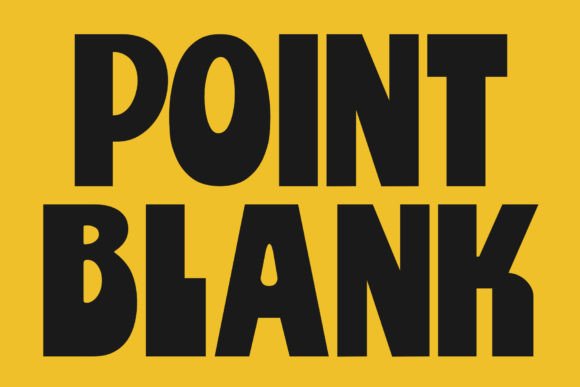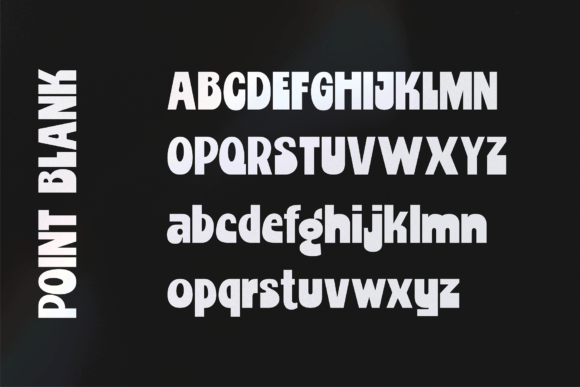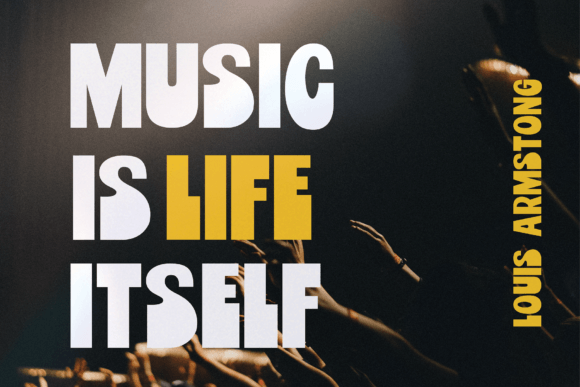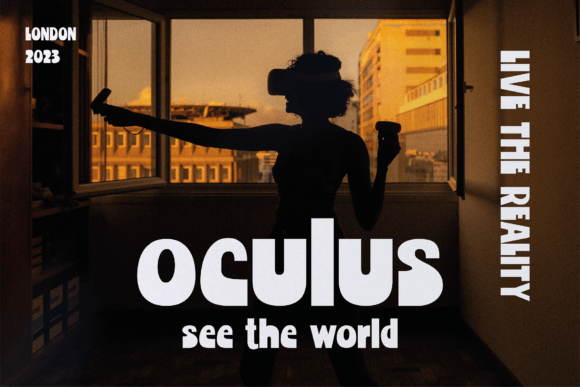
Point Blank Font
About the Point Blank Font
We are excited to introduce Point Blank Font, a must-have typeface for any serious designer. Point Blank is a retro-inspired display font that takes us back to the groovy and funky style of the 1960s and 1970s. With big, bold, and chubby letterforms, this typeface is perfect for making a statement. Whether you’re designing a poster, a logo, or a product label, Point Blank will add a touch of retro charm to your project.
Point Blank excels in large-scale applications such as headlines, posters, and logos where its bold, chunky forms command attention. It’s ideal for branding projects aiming for a retro-futuristic or vintage vibe, particularly those related to music, fashion, or entertainment. Avoid using it for body text or UI elements; its low x-height and heavy weight make it difficult to read in smaller sizes or extended passages.
This font’s playful yet assertive personality pairs well with clean sans-serif fonts like Futura or Helvetica for a balanced contrast. For a more vintage feel, consider pairing it with a classic serif like Garamond or a slightly more modern serif like Playfair Display. Avoid pairing it with other highly decorative or overly stylized fonts which might create visual clutter.
Point Blank’s core personality is bold and playful, yet undeniably retro. It projects an energetic and confident mood, suitable for brands aiming for a fun, nostalgic, yet contemporary image.
Point Blank Font Usage Examples
Point Blank Font Example